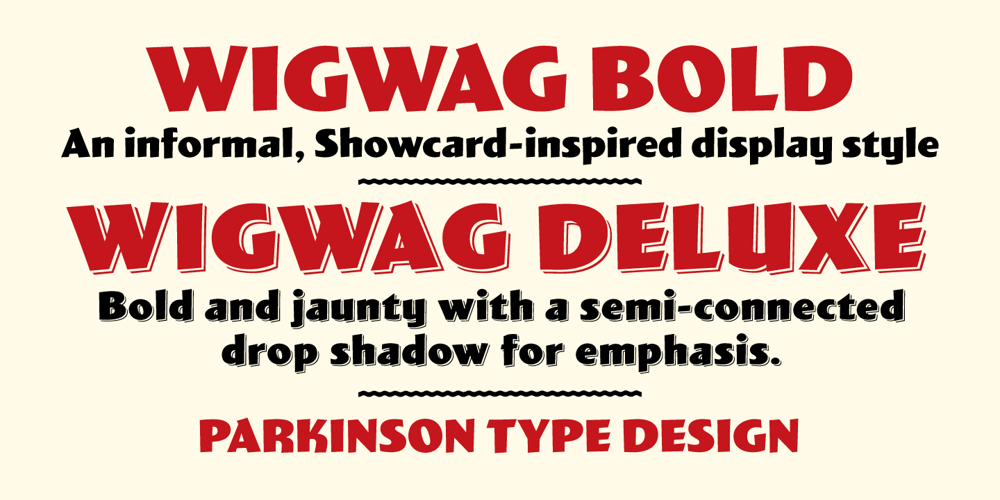
Wigwag
Wigwag font
Wigwag Font Family was designed by Jim Parkinson and published by Parkinson. Wigwag contains 2 styles and family package options. WigWag Bold and Wigwag Deluxe are bold, informal lettering styles inspired by mid-20th century Showcard Lettering. Especially by the work of Speedball lettering artist Ross George, and also the work of Cecil Wade and Samuel Welo. Designed around 2001 by Jim Parkinson, Wigwag has recently been refreshed and re-released.